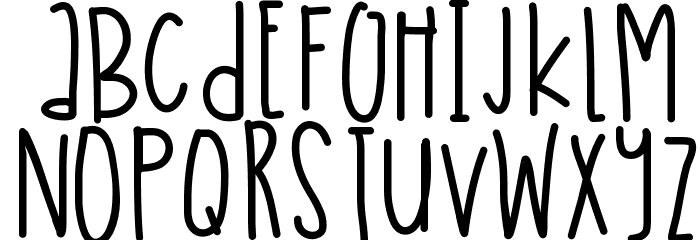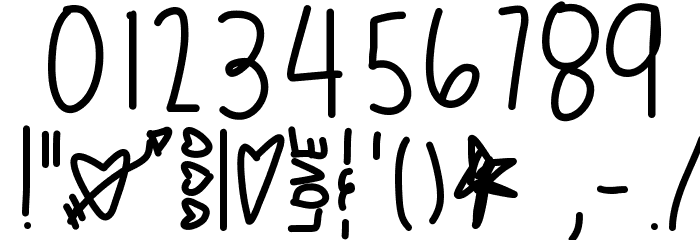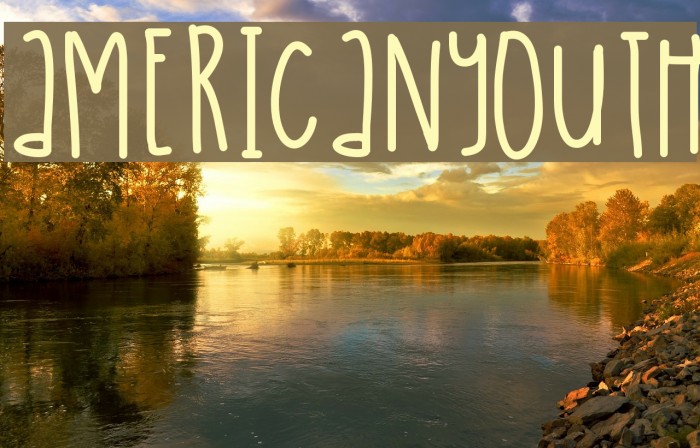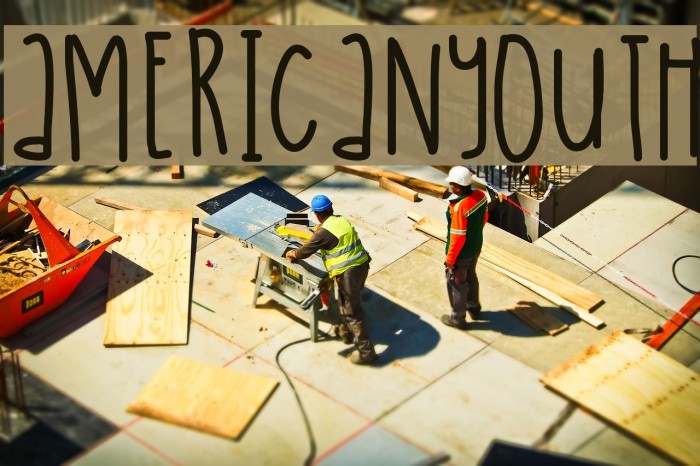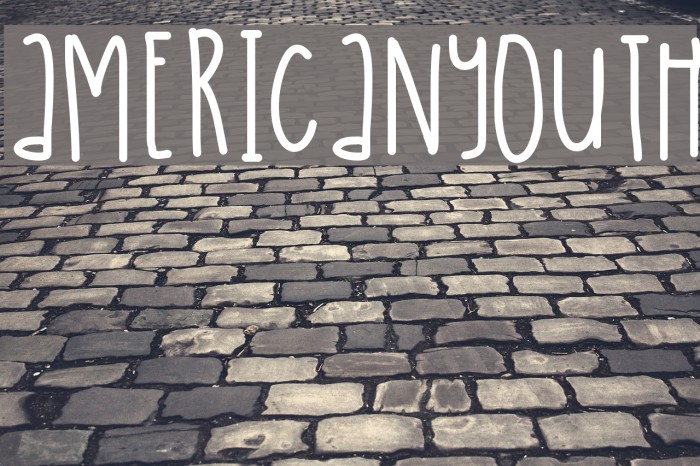
AmericanYouth Font
This font features a playful and youthful handwritten style, characterized by tall, narrow letters with a casual and informal appearance. The strokes are consistent in width, giving it a uniform look, while the slightly irregular shapes add a touch of whimsy. The uppercase and lowercase letters maintain a cohesive design, with rounded edges and a smooth flow. The numbers and special characters complement the alphabet with the same lively and dynamic feel. This font is ideal for projects that require a fun and approachable aesthetic.
A playful handwritten font with tall, narrow letters and a casual style.
- Proposed Projects: Ideal for children's books, greeting cards, playful branding, and social media graphics.
- Overall Style: Playful
- Use Case: Headlines, Logos, Informal Text